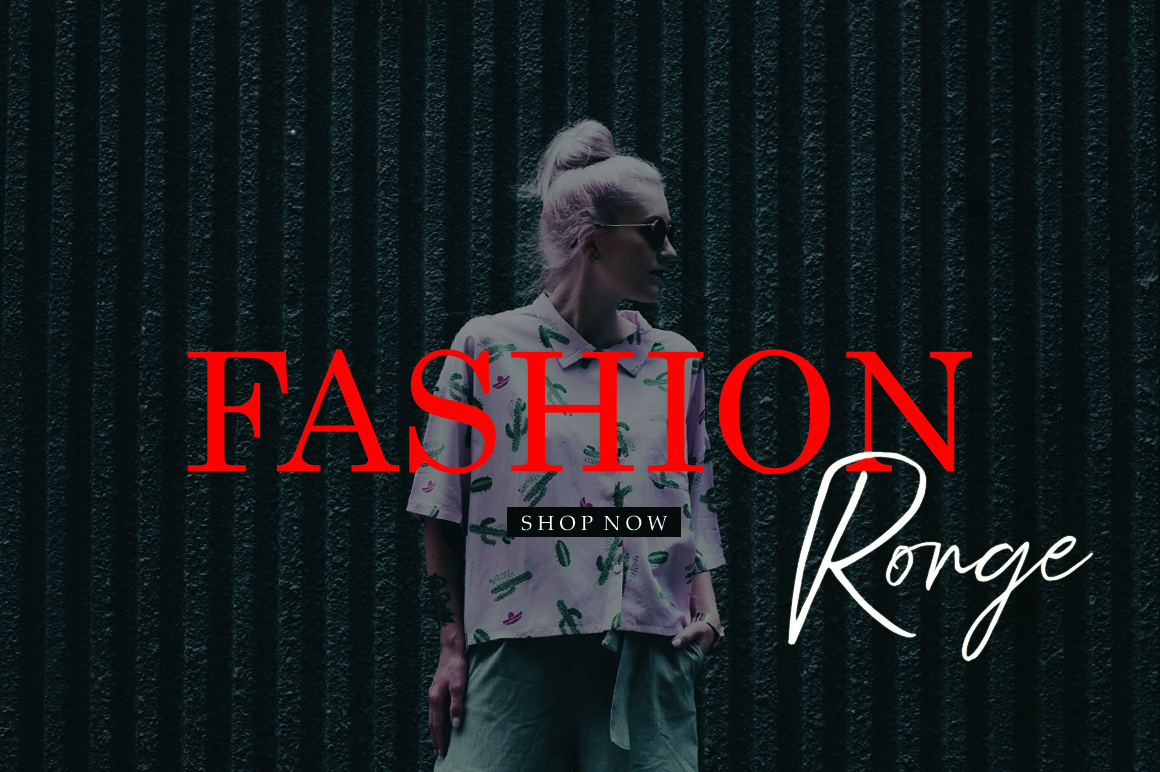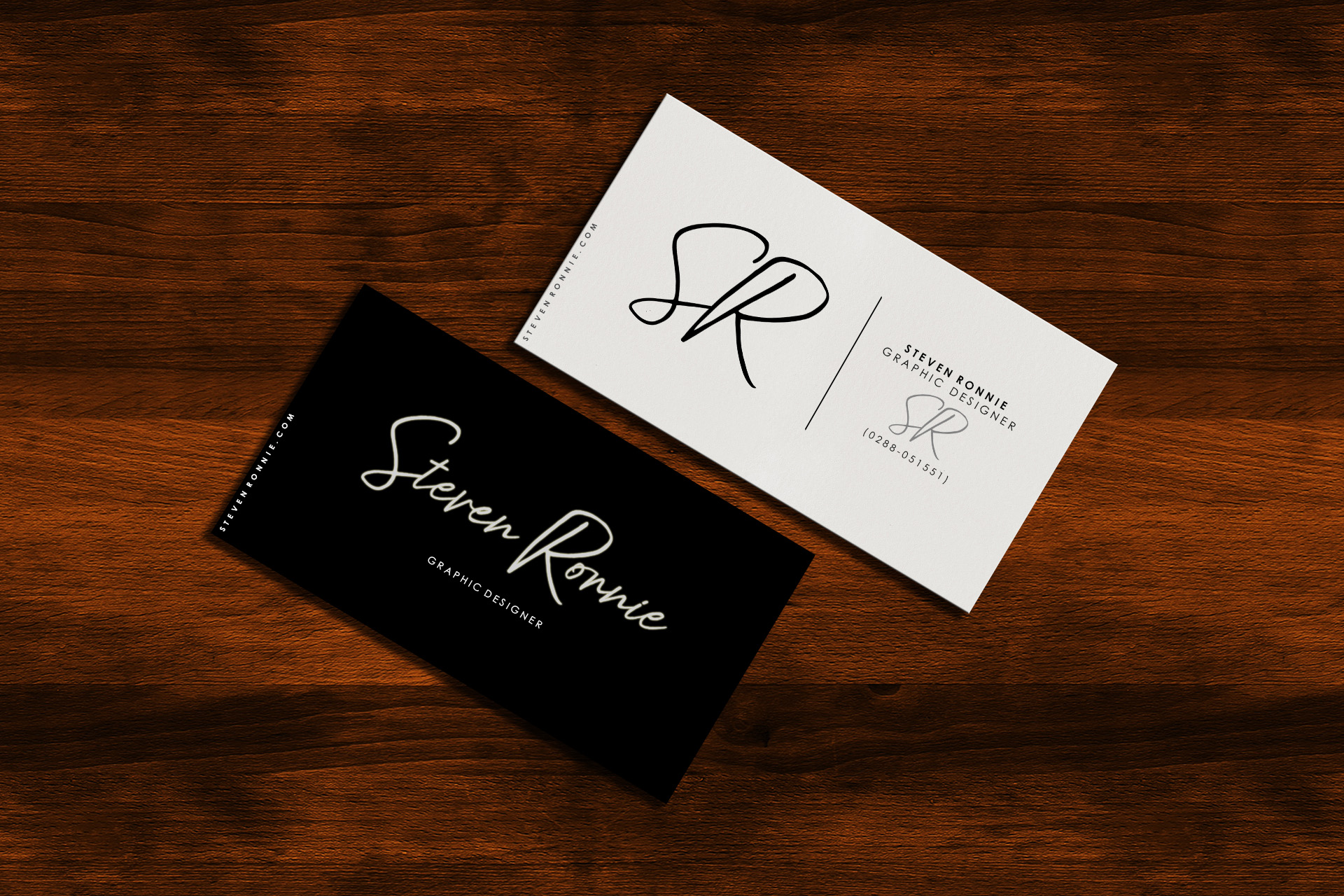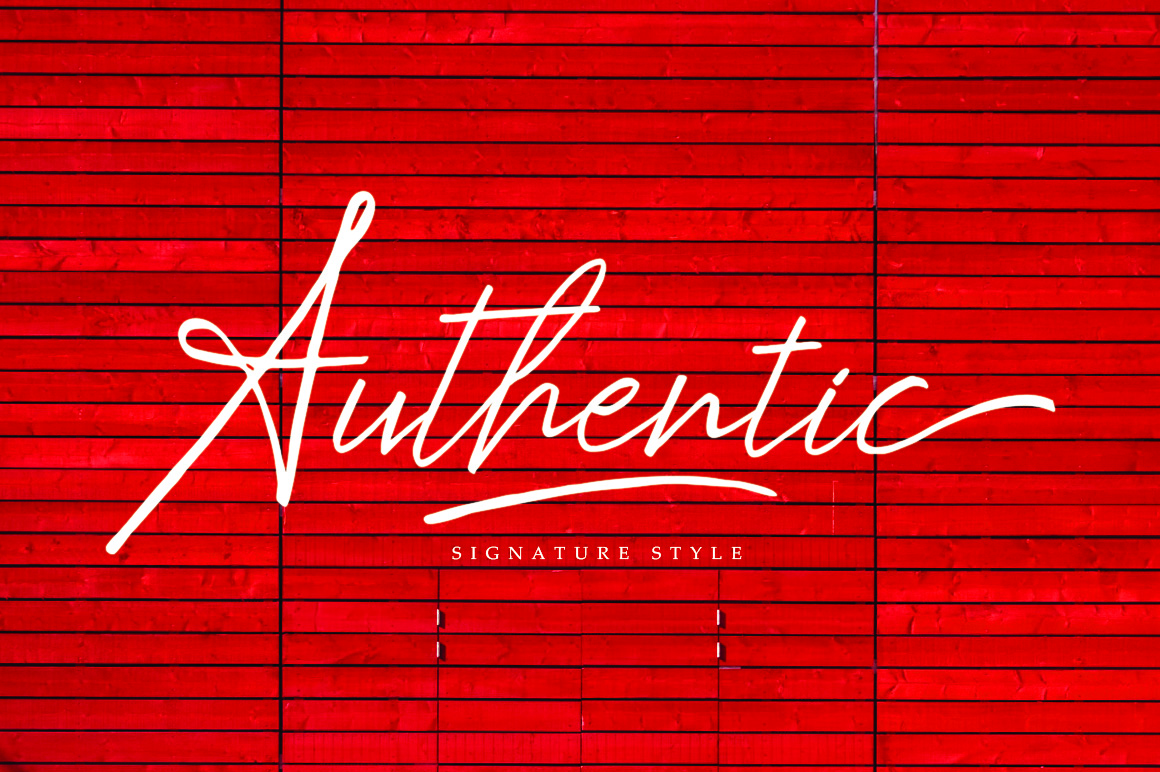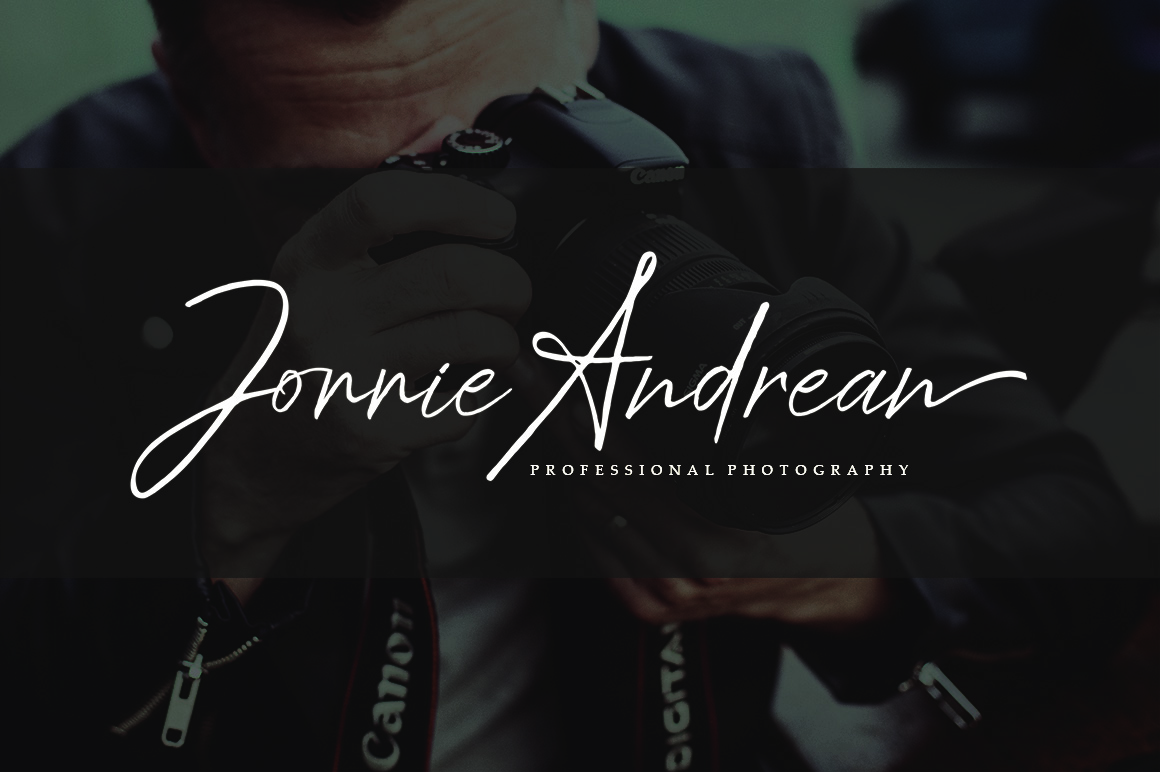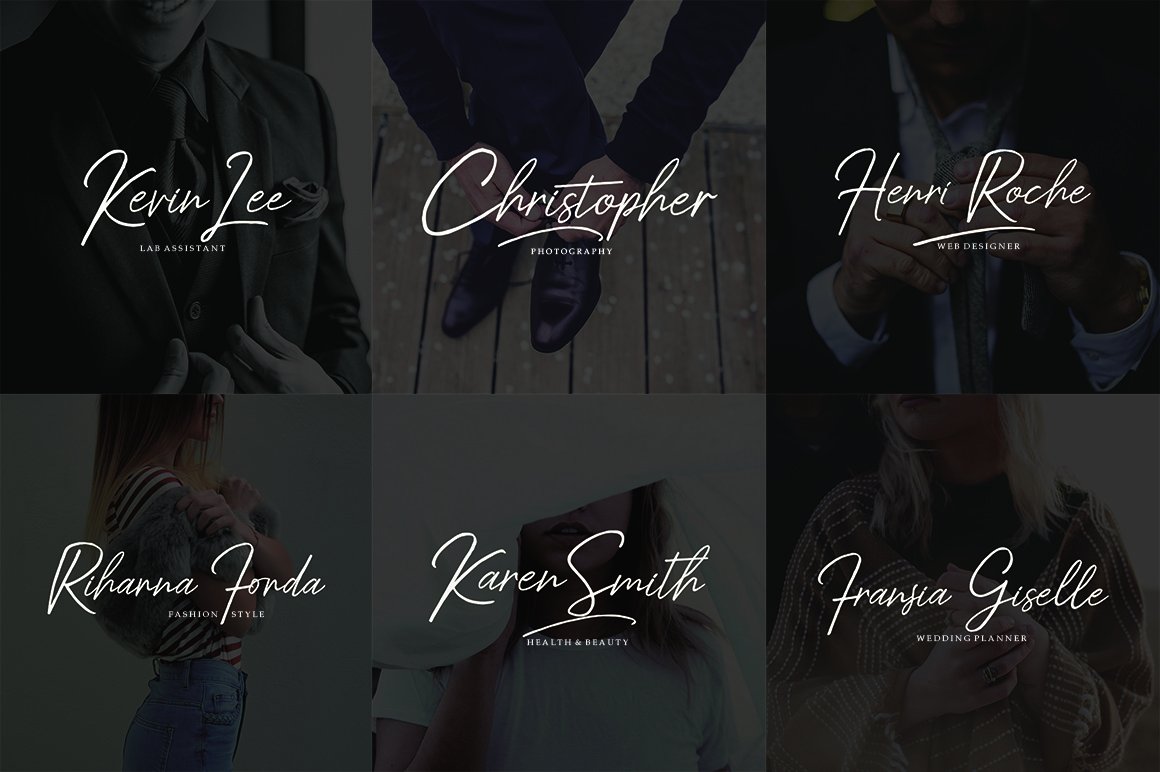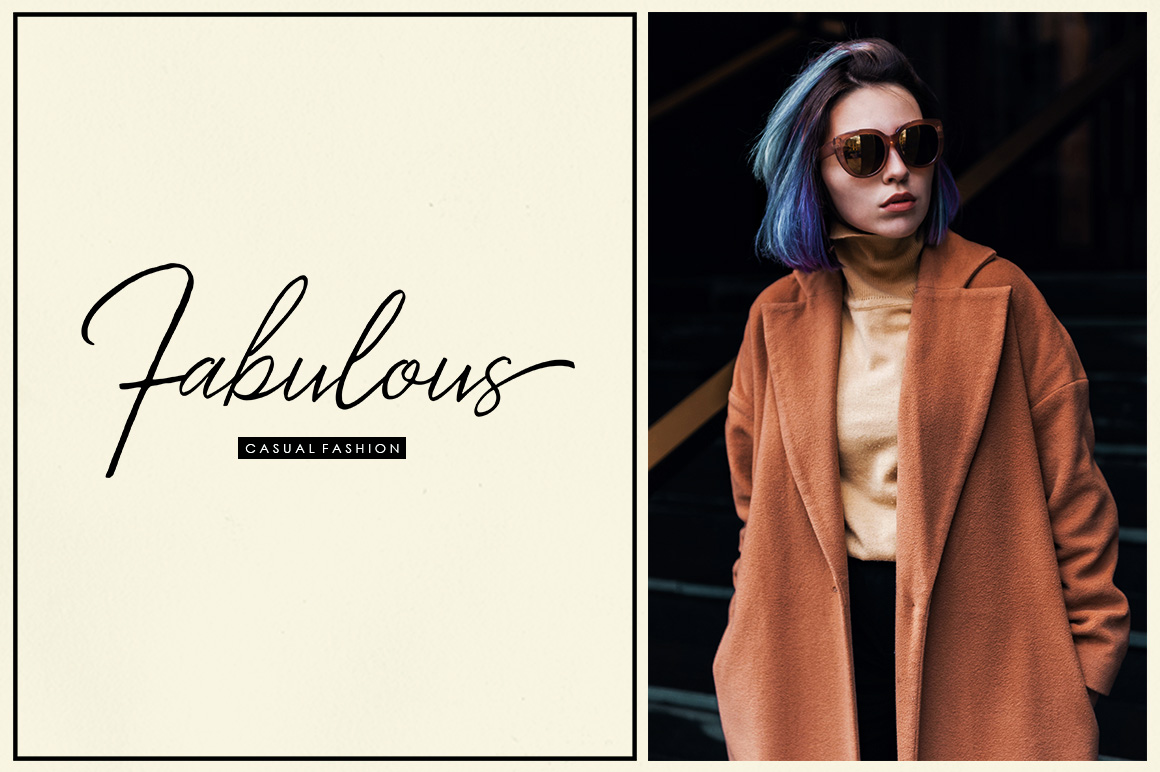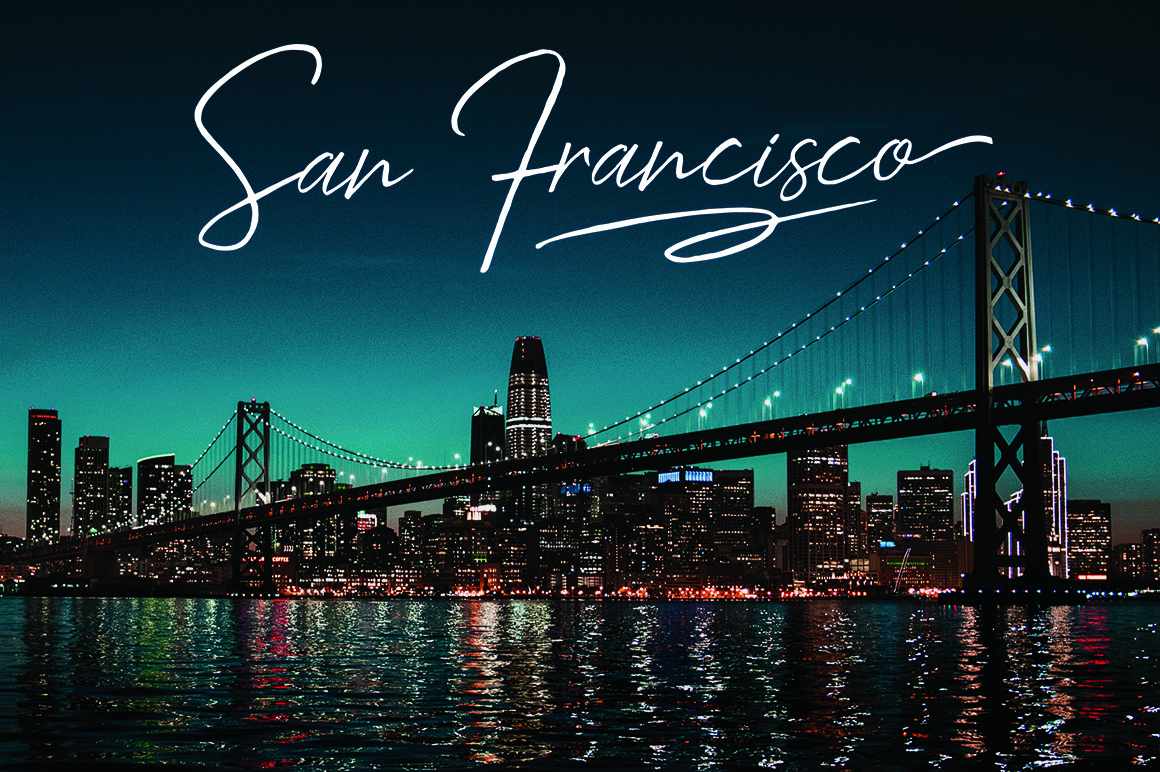
Kingstoner Font
About Kingstoner Font
Kingstoner Signature is handmade signature style font with stunning characters. This signature script moves with ease across any design, and adds a large dose of confidence and style.